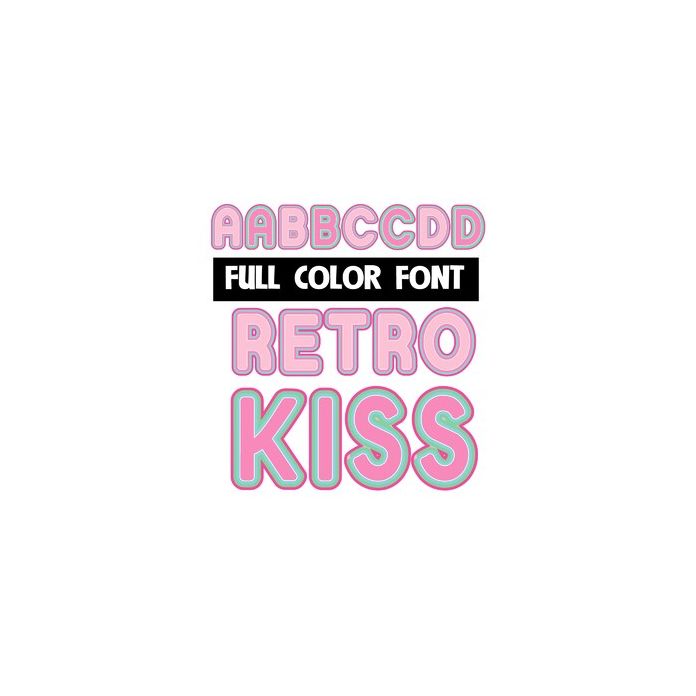
This full-color, retro-style font features a perfect kiss of pastel colors. This font works best for titles, displays, posters and more. Please note color fonts will show as black in non compatible programs. This font type is compatible with Silhouette Studio.